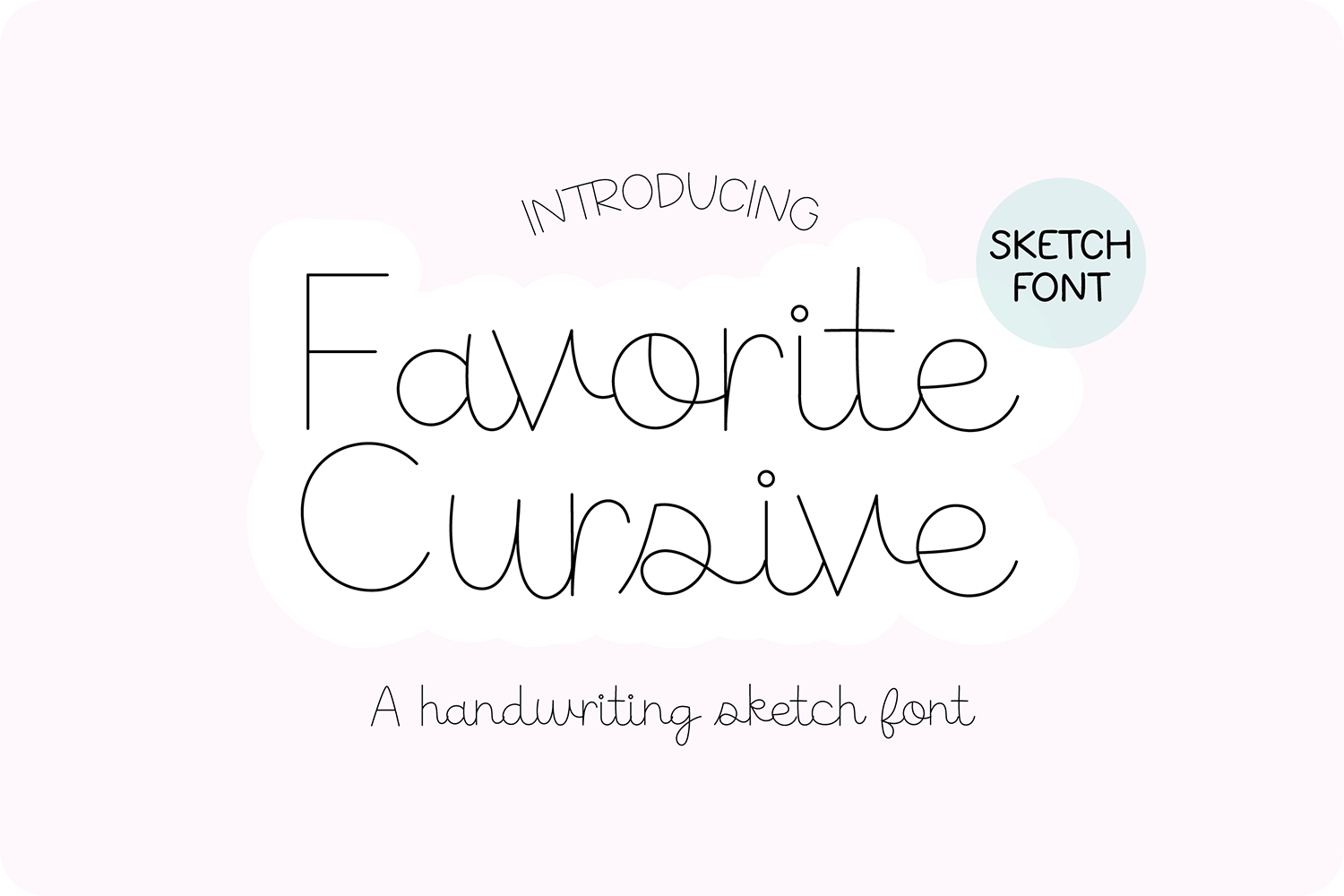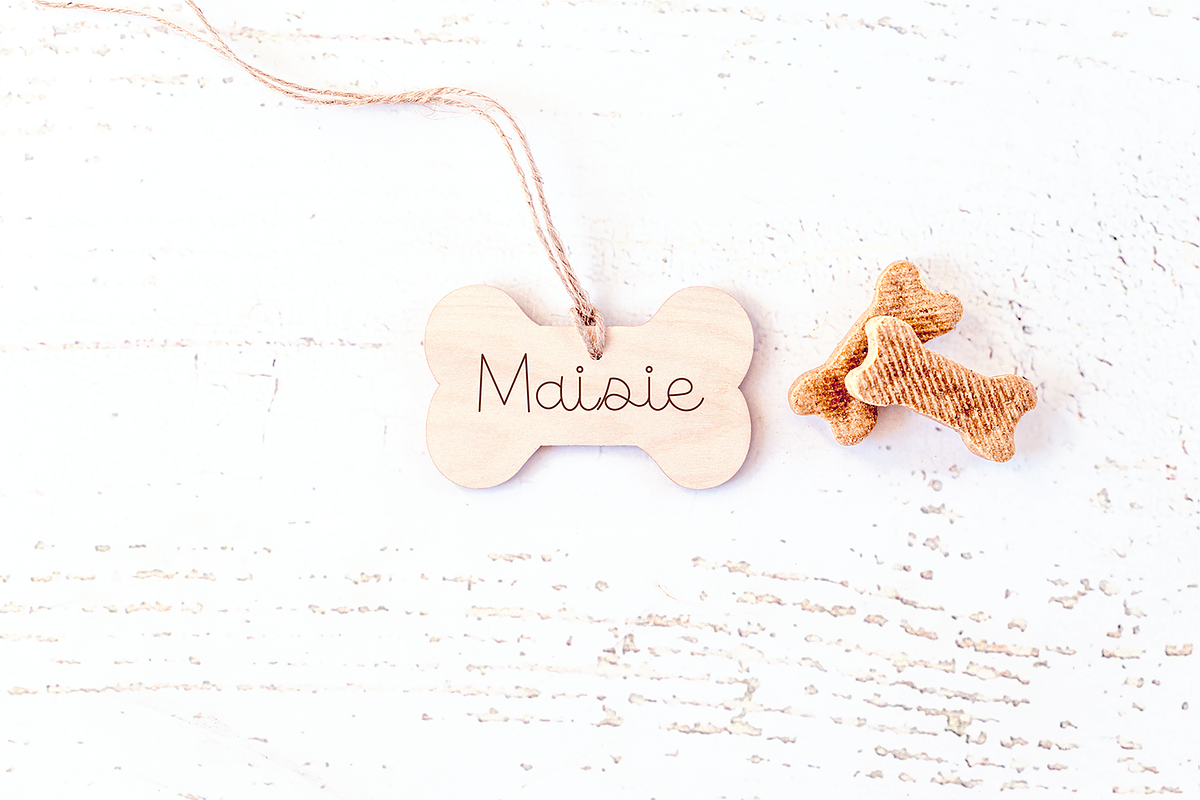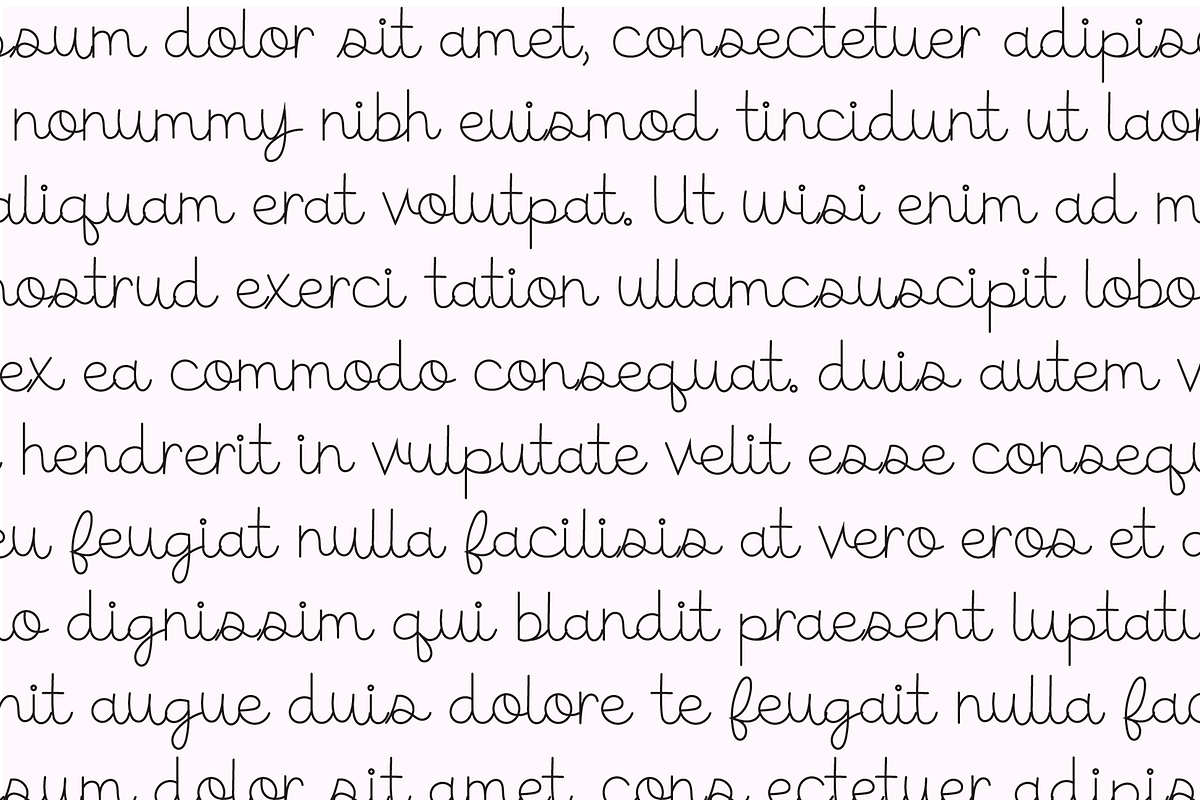
FAVORITE CURSIVE Sketch Font
"FAVORITE CURSIVE Sketch"
Font includes: Uppercase and lowercase glyphs, numbers, and basic punctuation and intl characters.